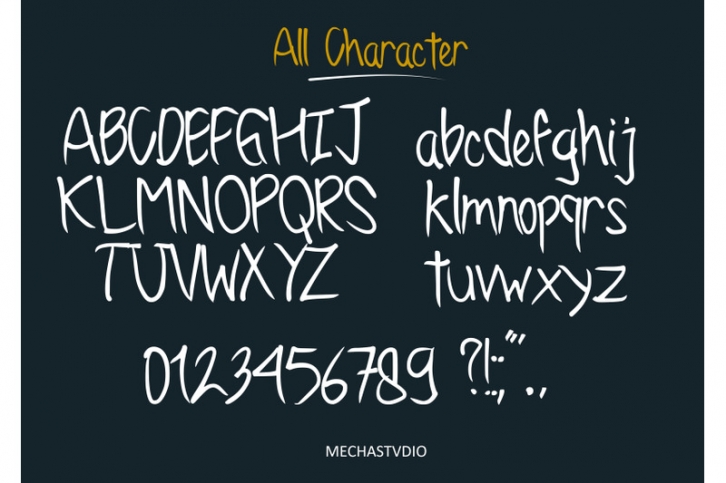
Dynamic sans font style is a modern script font. It has a clean, thin, and smooth vibe and it will be a hit for any design that you want to add it to. Dynamic sans font support multilingual more than 100+ language. This font is good for logo design, Social media, Movie titles, Books titles, a short text even a long text and good for your secondary text font with script or signature typeface. Make a stunning work with this font.